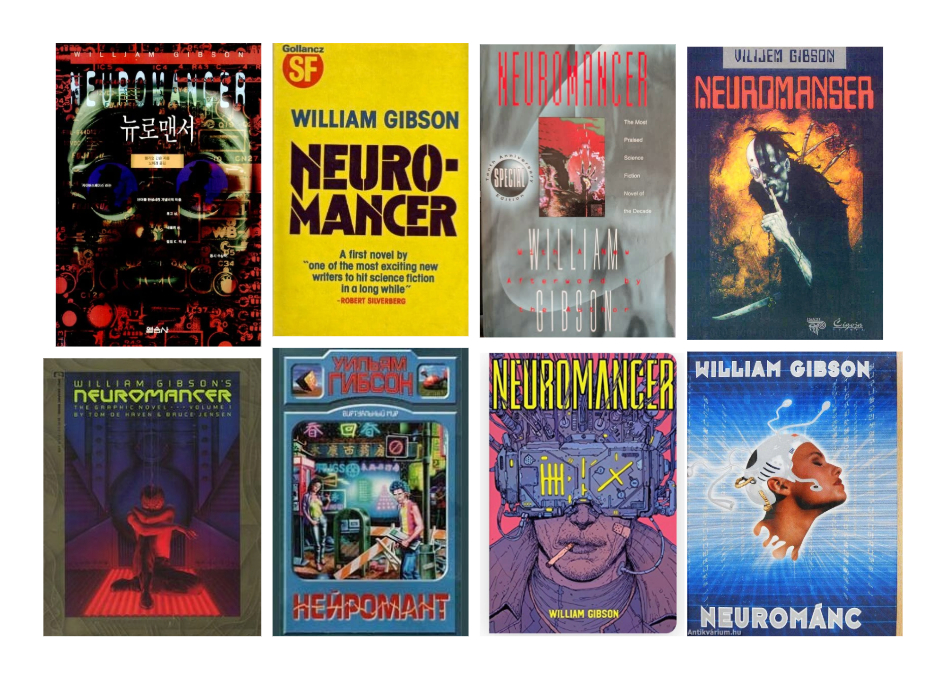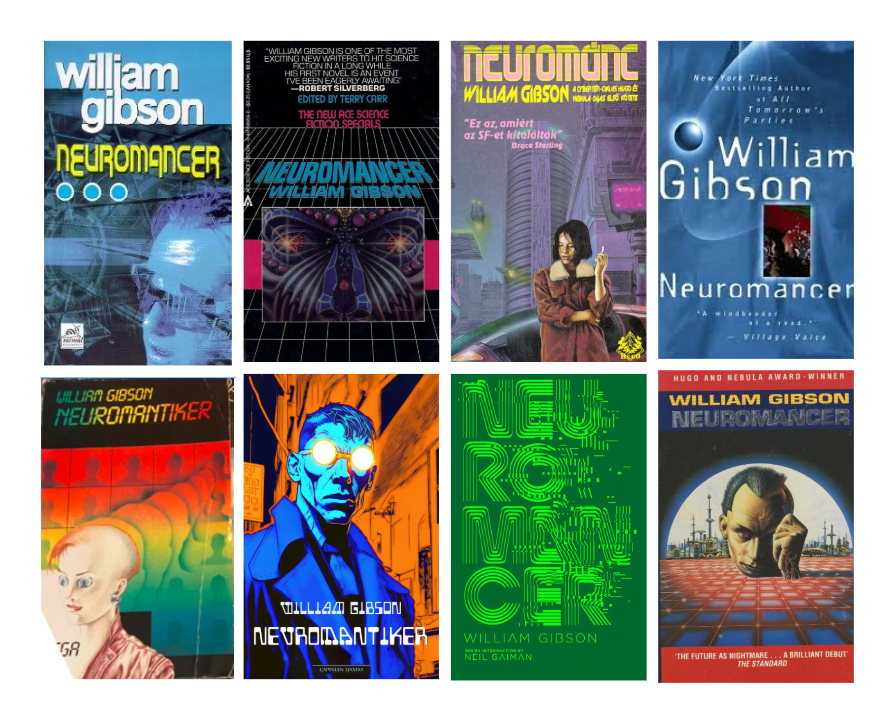
Apple TV's Neuromancer poster raises questions about its adaptation of an 'unfilmable' novel
The notoriously unfilmable book that gave birth to cyberpunk and predicted some of the biggest technological concepts of our age is finally coming to the screen. Apple TV is adapting William Gibson's Neuromancer for a ten-episode series, and the news has been greeted with a mixture of excitement and fear by fans of the 1984 novel.
Over the decades, directors from Chris Cunningham to Chuck Russell, Vincenzo Natali and most recently Tim Miller have been linked to movie adaptations that never got off the ground. A 1995 movie of Johnny Mnemonic, a short story that preceded Neuromancer, got panned.
Now J.D. Dillard (Sleight, Devotion) and Graham Roland (Dark Winds) are taking on what's probably Apple TV's boldest project yet. Will their small screen Neuromancer succeed in translating the book's abstract concepts of cyberspace and autonomous AIs? The poster design has already sparked debate.
Apple's released the first Neuromancer trailer, which confirms that the poster design shows Case, the main character, with an implanted jack (see below). The release date has been announced as 22 January 2027.
William Gibson's debut sci-fi novel follows Henry Case, a crippled hacker who's hired by a shadowy figure called Armitage and cyborg Molly. It's set in a world where humans can interact with computers by 'jacking in' to a digital plane called cyberspace.
Apple TV's first poster design for its Neuromancer series isn't giving much away. The minimalist design has only two elements, but they're both interesting.
First there's the font. The vertical lines are suggestive of data streams or dripping code, or perhaps a visual metaphor for falling into cyberspace. But what I also like most is the retro-futuristic feel that follows a long tradition in the book cover designs.
There have been many dozens of editions of Neuromancer published in many languages. The cover art has varied dramatically, from the gritty comic-like artwork of Josan Gonzalez for a Brazilian edition to surreal illustrations that could have appeared on any number of rave flyers in the '90s to Gollancz's trademarket plain-yellow cover.
One thing that has united most cover designs is a general consensus that the title needed to appear in a futuristic font, and that the font might have the power to say more than any image.
As for the image in Apple TV's poster design, the gritty, tactile quality feels perfect for Gibson's grimy dystopian vision. But its subject is generating debate.
The poster appears to show a port or jack implanted behind someone's ear. In the novel, Case used electrodes to connect to cyberspace, not an implanted plug.
Is the person in the image someone else, then? Over on Reddit, some people suggest it might be the software booth worker Larry. In the novel, he was described as having a bunch of neural sockets for chips called microsofts. But would Apple put a relatively minor character on the poster? It seems more likely that the series might change some of the tech from the novel.
That wouldn't necessarily be a bad decision. Some of the future that Gibson imagined has already happened – perhaps because of how popular Neuromancer was among computer science students. But there are also details like payphones and physical media that make the novel feel anachronistic.
Updating the tech for a world where we already have mobile phones, VR headsets and companies testing implantable brain-computer interfaces could allow the series to present the story in a way that makes it still feel like a plausible near future for today's world.
While some of the details of Neuromancer have dated, the story is as relevant as ever. The author wasn't particularly interested in the specifics of the technology but the bigger themes around counterculture, societal decay and questions of morality. How Apple TV handles these will determine the success of its adaptation. It it does it well, there's plenty more for it to explore with the other two novels in the Sprawl Trilogy.
Neuromancer will be released on Apple TV in January.